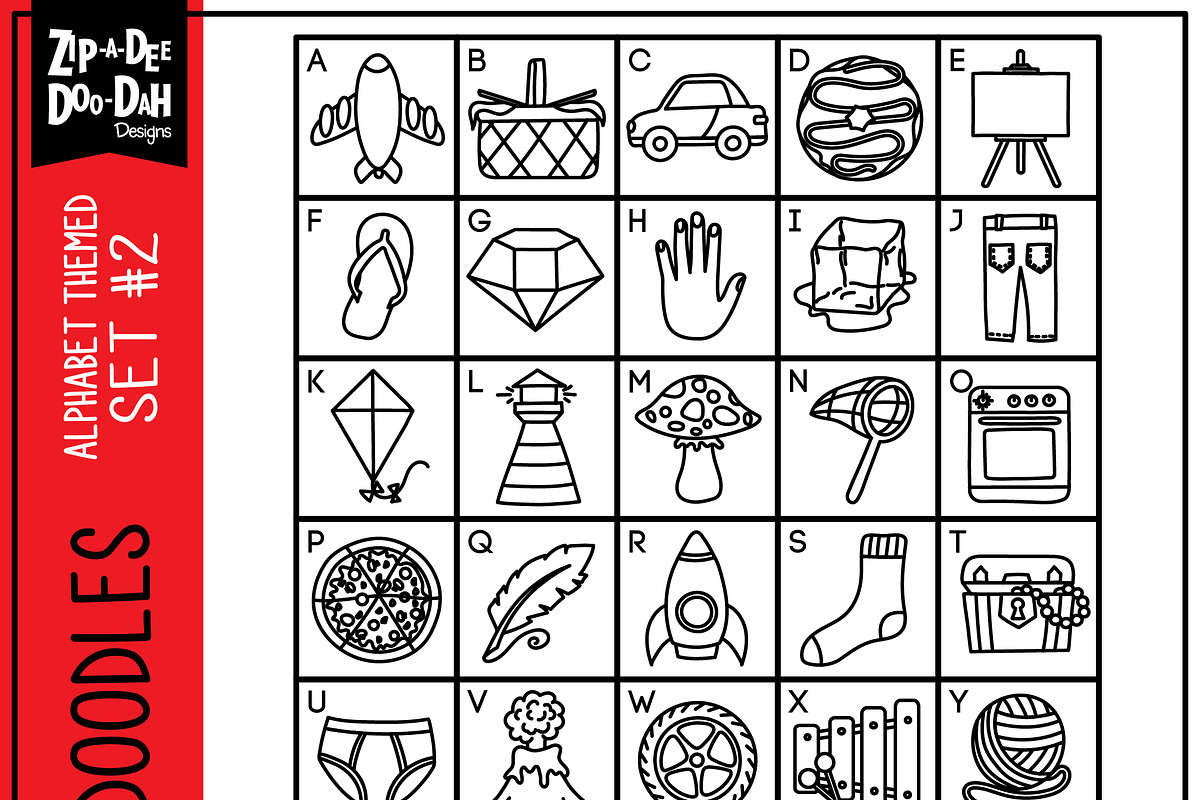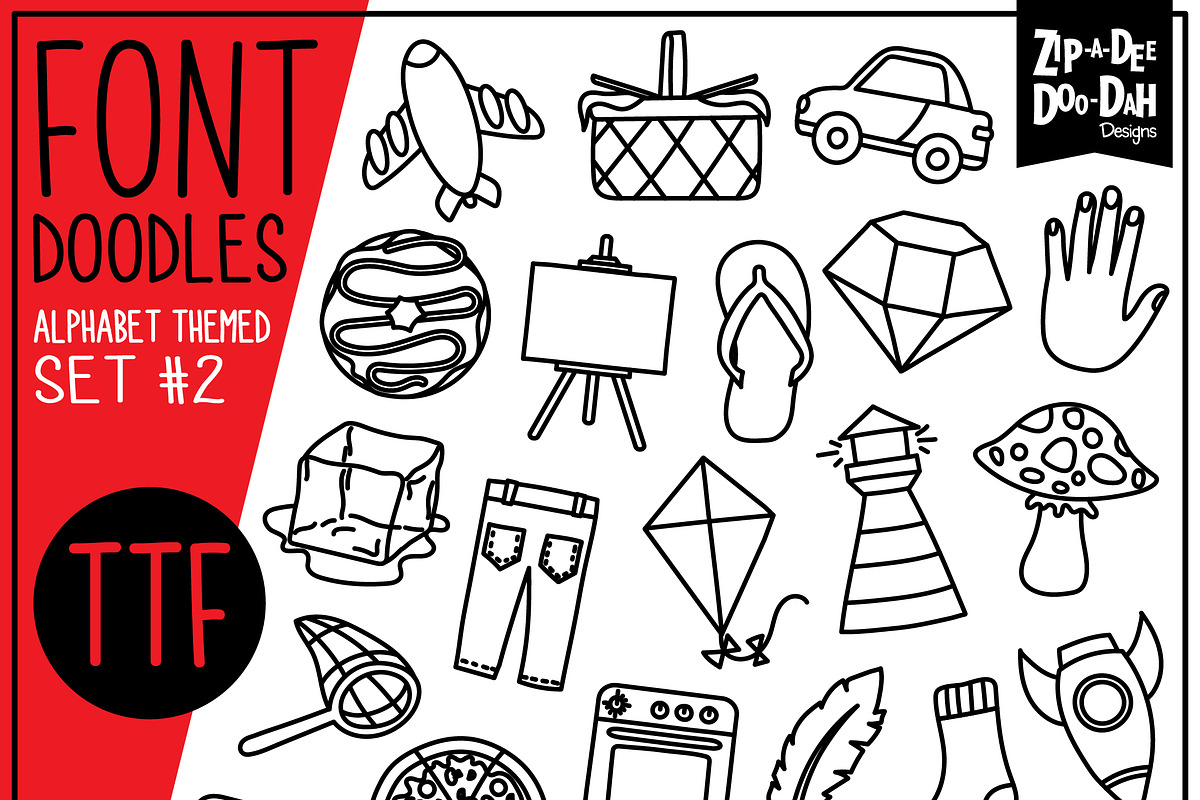
Alphabet Doodle Font 2
Add a bit of fun to your resources and products with this doodle font. This doodle font would be perfect for mystery icon sentences. Type out your sentence using this doodle font and have others try to solve with clues or even math equations. Everyone loves being detective! You can easily just use this font for the graphics too. Feel free to add color behind it to make it stand out even more.
This doodle font was hand drawn by myself that is really a TRUE TYPE FONT (TTF) so you will be able to add them to your font suitcase and type with them. This font has 35 doodles which are assigned to capital letters A-Z and numbers 1-9. This font is headache free too! All my doodle fonts have been tested by multiple people in multiple programs to ensure there are no errors or problem installing. Be sure to check out all the preview pages for details. Font come in a standard font file format (.otf) and the color is solid black. All my fonts are for personal and commercial use. The price already includes the commercial license for the small business. If you are a large business, please contact me and we can work out a rate.